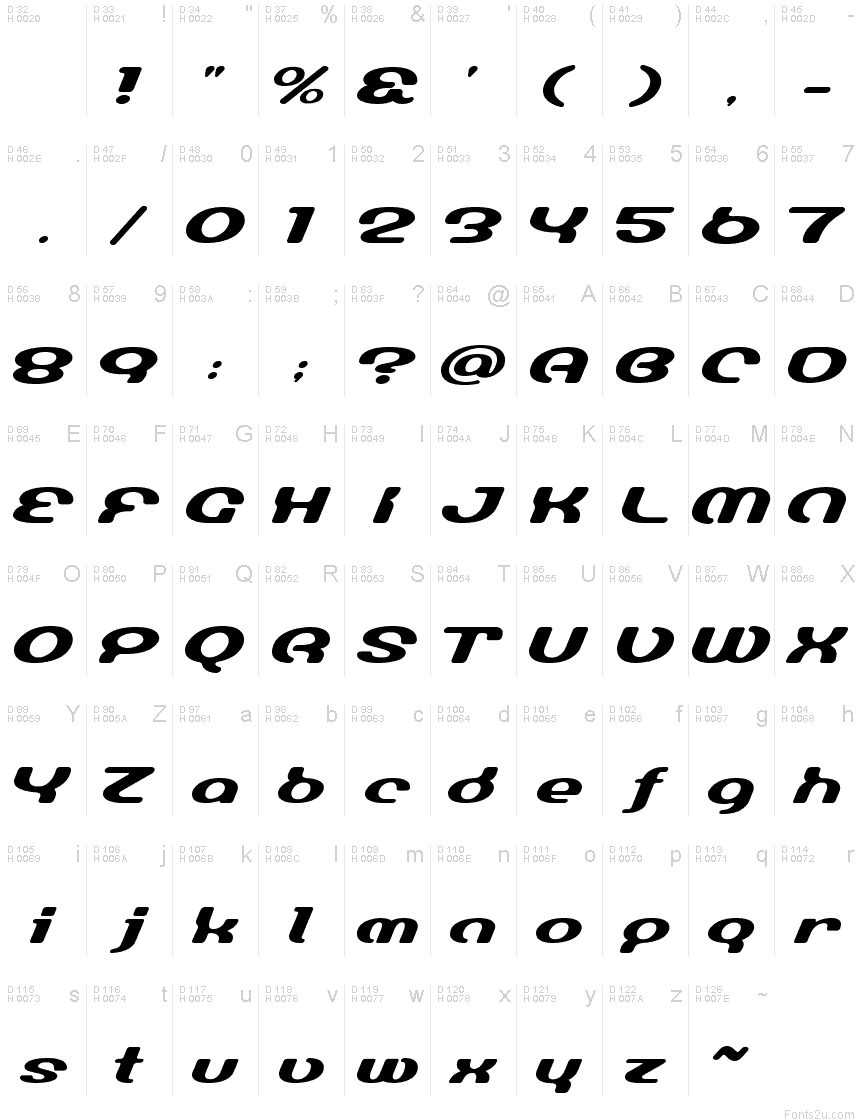
LumineSign Bold
Lumine Sign Bold, from Ley Line and Gray Graphics, is a free rounded modern display font with a sleek, sign-like flow. The letters lean into broad curves and clipped, softened corners, giving the alphabet a low, gliding rhythm that feels more like illuminated branding than strict geometric lettering.
It fits naturally in logo work, storefront graphics, album covers, poster headlines, title cards, and short packaging names, where that smooth forward motion can carry a word on its own. As a free font, it makes particular sense for monograms and brief cover lines, because the compact, heavy shapes feel calm and stylized without needing extra ornament.